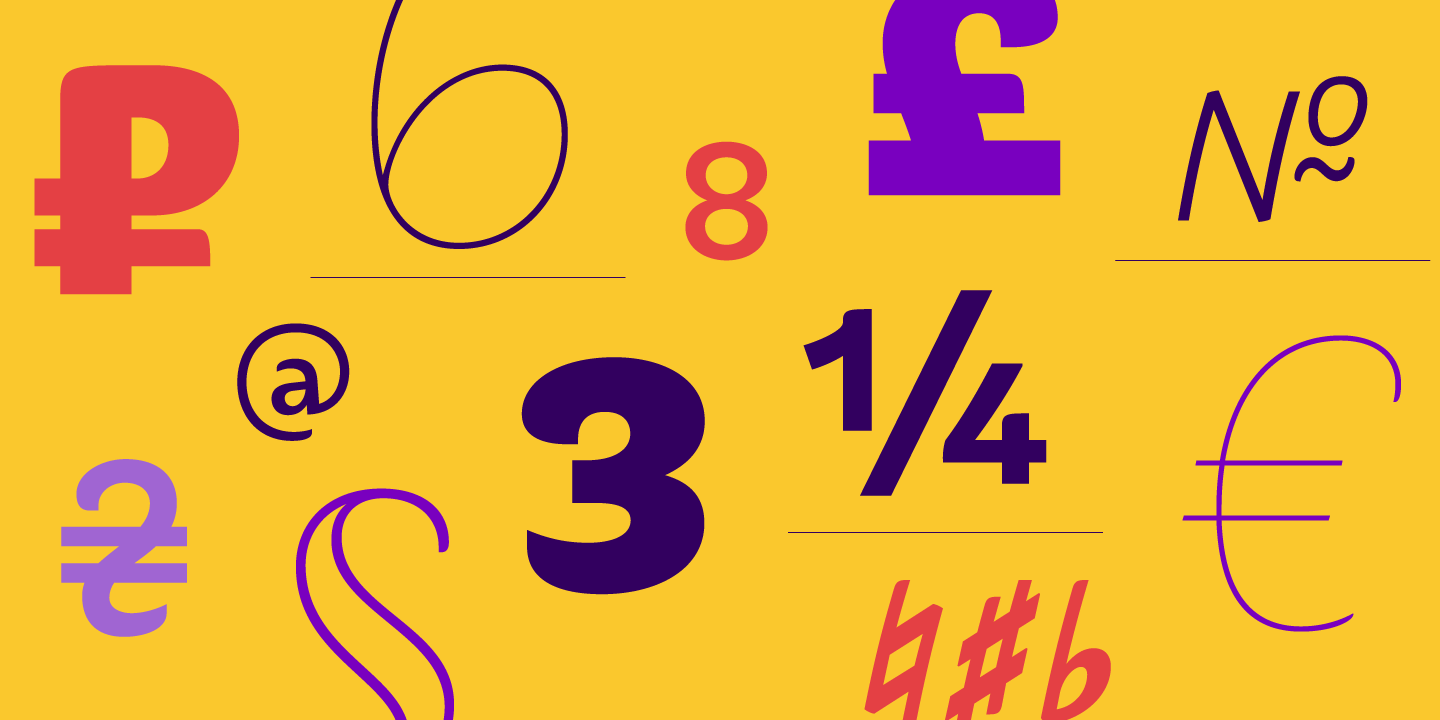
Iskra Font is ideal for innovative startup branding, creative agency logos, artistic exhibition posters, dynamic music festival graphics, energetic sports team materials, cutting-edge tech presentations, vibrant youth campaigns, and revolutionary product launches.
This font is exciting because it ignites creative passion with electrifying letterforms that spark imagination and capture the explosive energy of breakthrough moments and revolutionary ideas. The Iskra Font embodies the spark of inspiration that transforms concepts into reality, making every word feel charged with potential and ready to illuminate new possibilities in design and communication.
The Iskra Font family includes dynamic variations such as Regular, Bold, Light, Electric, Italic, Spark, Condensed, and Extended versions, providing creative professionals with comprehensive tools to generate typography that energizes audiences and creates memorable brand experiences across all innovative applications and breakthrough communications.
Spark creative revolution with Iskra Font Free Download that brings electric energy to every innovative design project. This dynamically charged typeface combines creative inspiration with practical functionality, making it perfect for startups, creative agencies, and organizations pushing boundaries and challenging conventional thinking. The font's electrifying character design ensures your message feels energetic and breakthrough-oriented while maintaining excellent readability across all platforms. Whether you're developing disruptive brand identities, creating breakthrough marketing campaigns, or designing materials that need to capture lightning-in-a-bottle energy, Iskra Font delivers the revolutionary typography that resonates with audiences seeking innovation and change. Its versatile design works powerfully across digital and print media while preserving the electric spark that makes creative communications feel genuinely inspiring and capable of igniting the kind of breakthrough thinking that changes industries and transforms possibilities into reality.